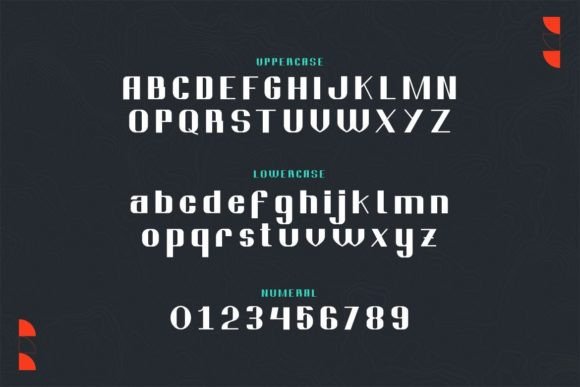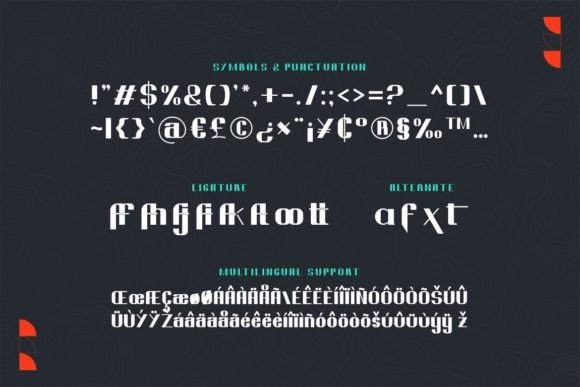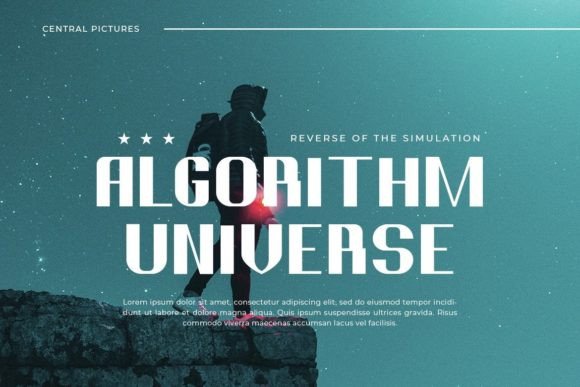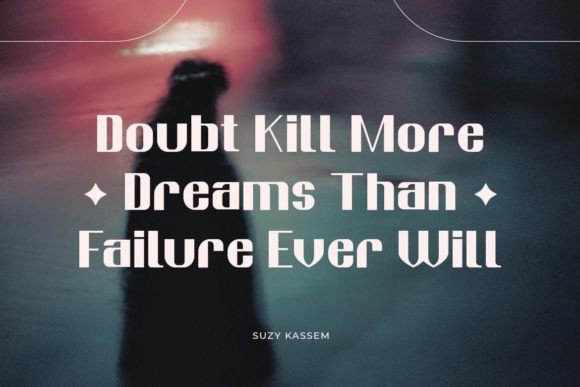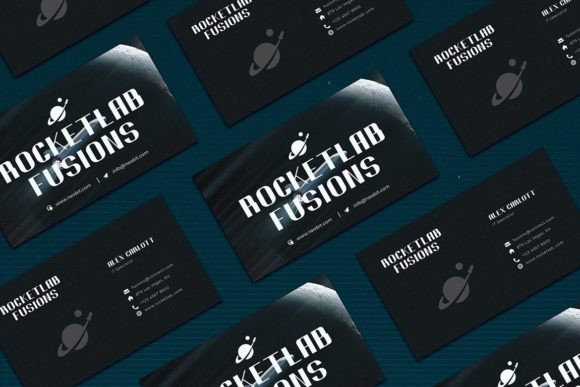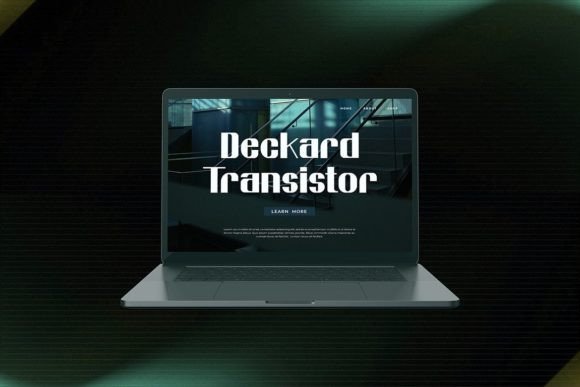
Introduction to Oreatives Font
Oreatives is a high contrast display font with strong and clean shapes.
You can use it for various projects, such as blog posts, logos, branding, ads, invitations, greeting cards, planners, photo albums, decorations, and much more This font is PUA encoded which means you can access all of the amazing glyphs and ligatures with ease.
Key Features of Oreatives Font